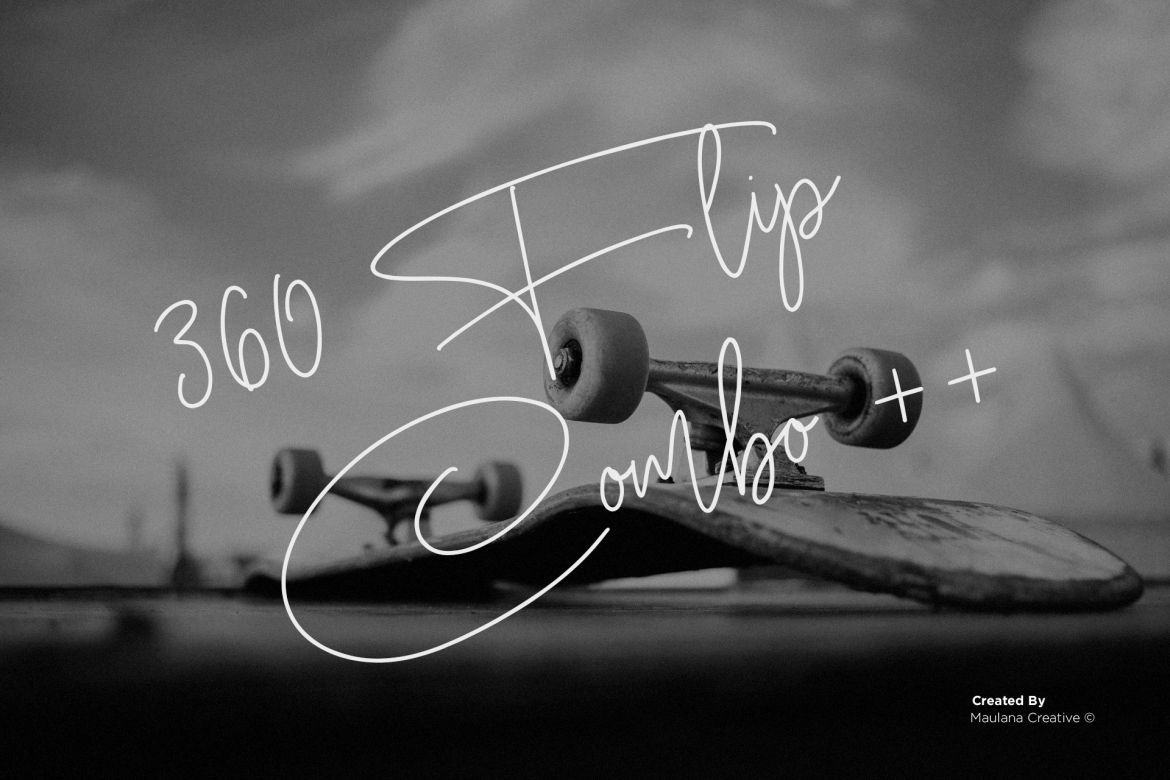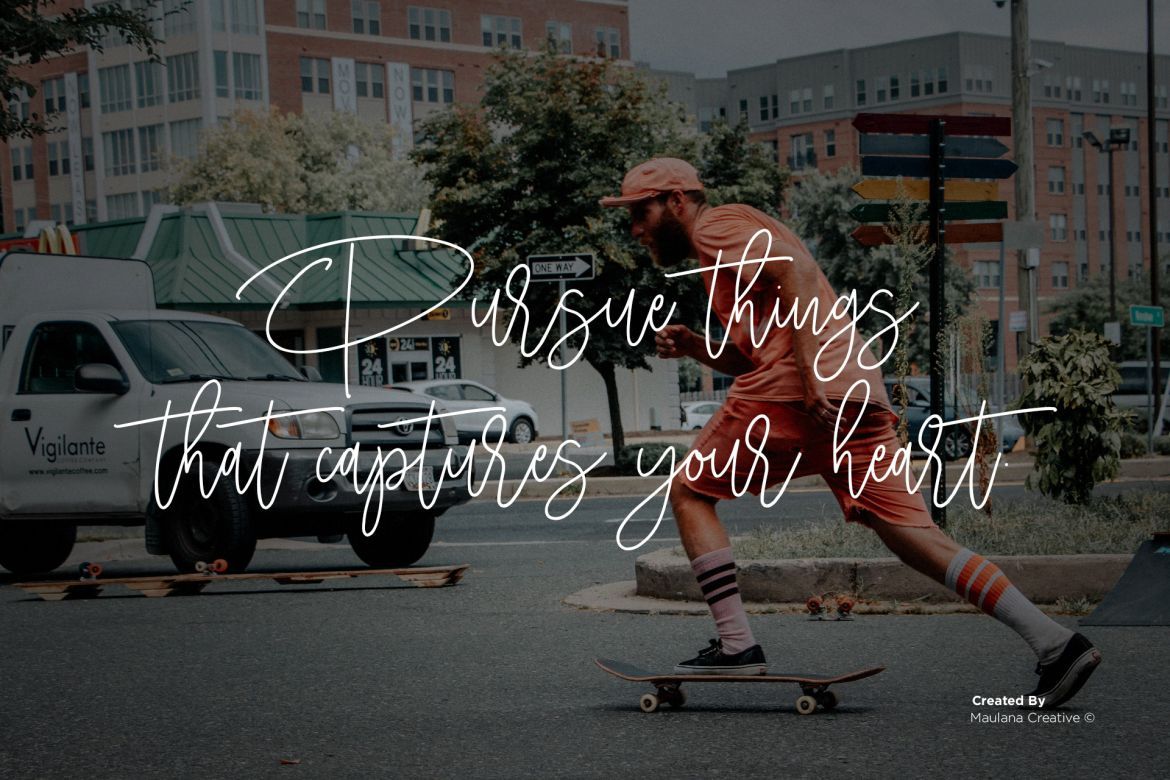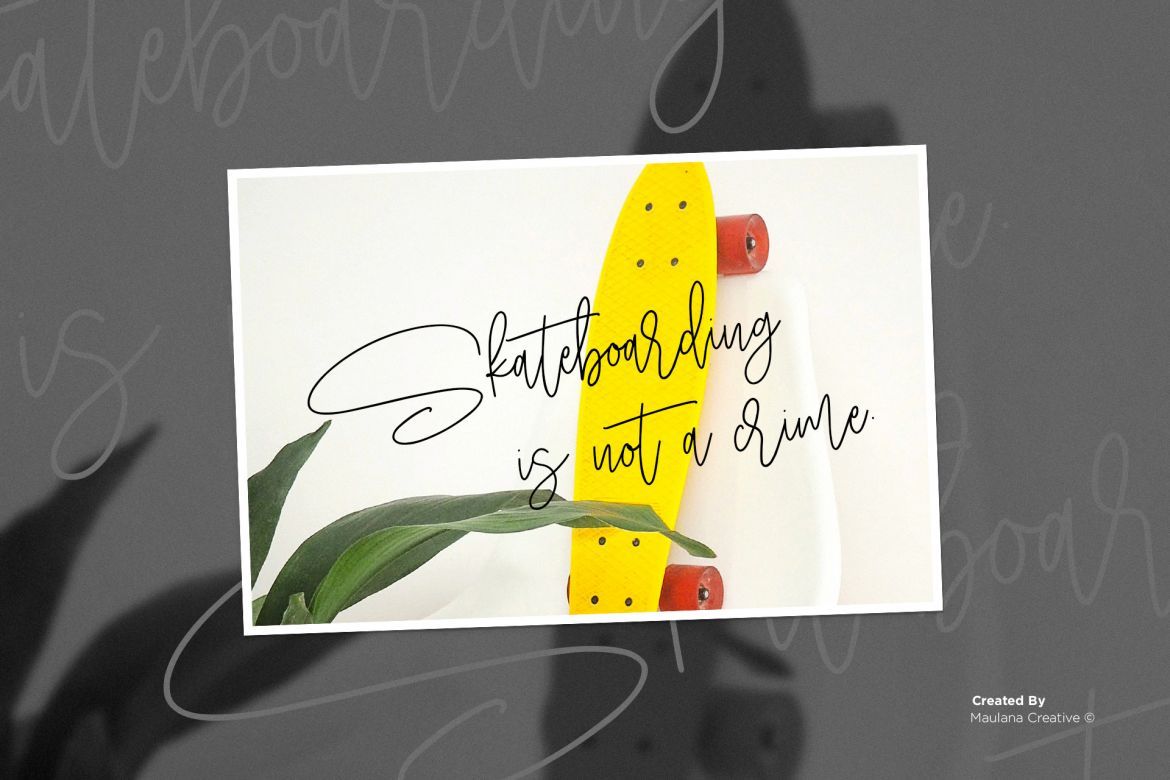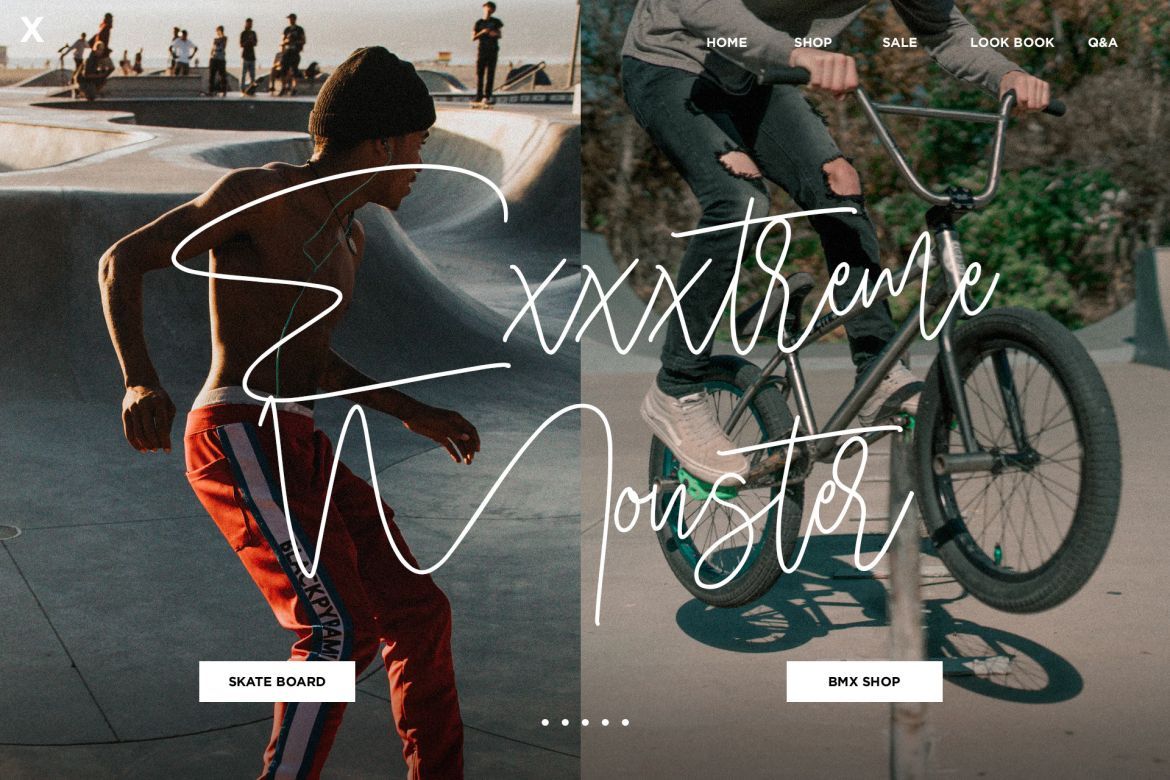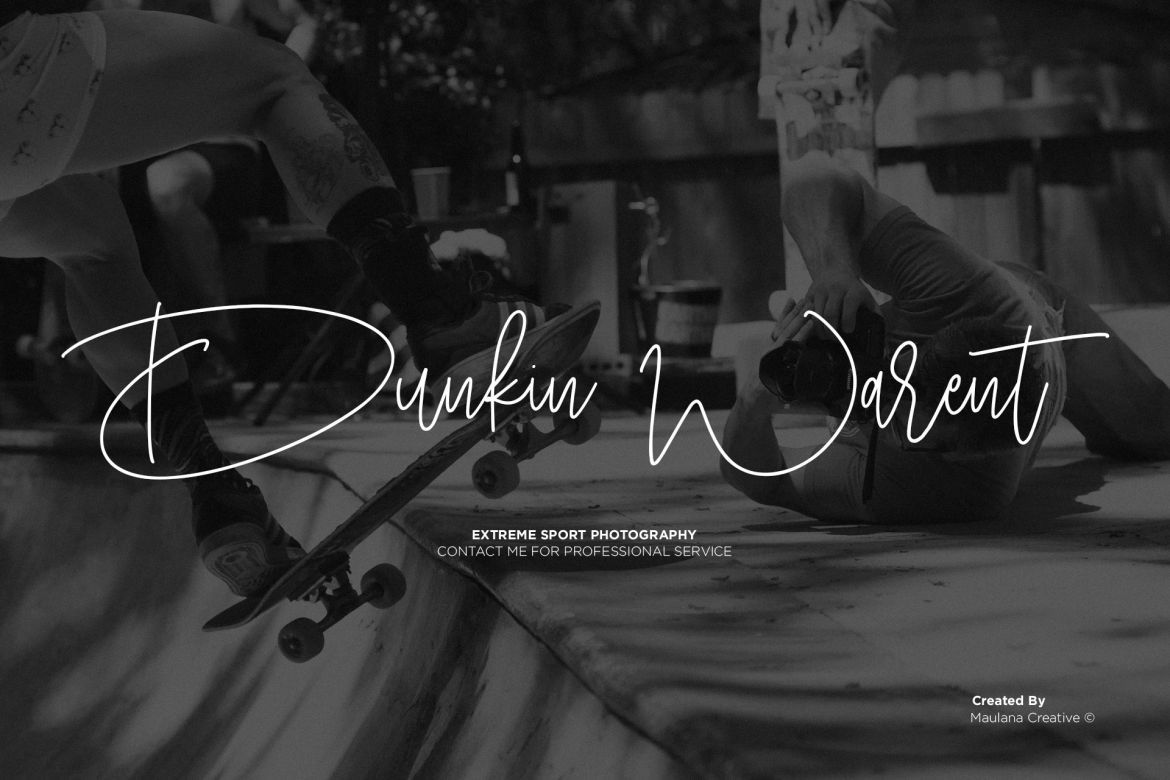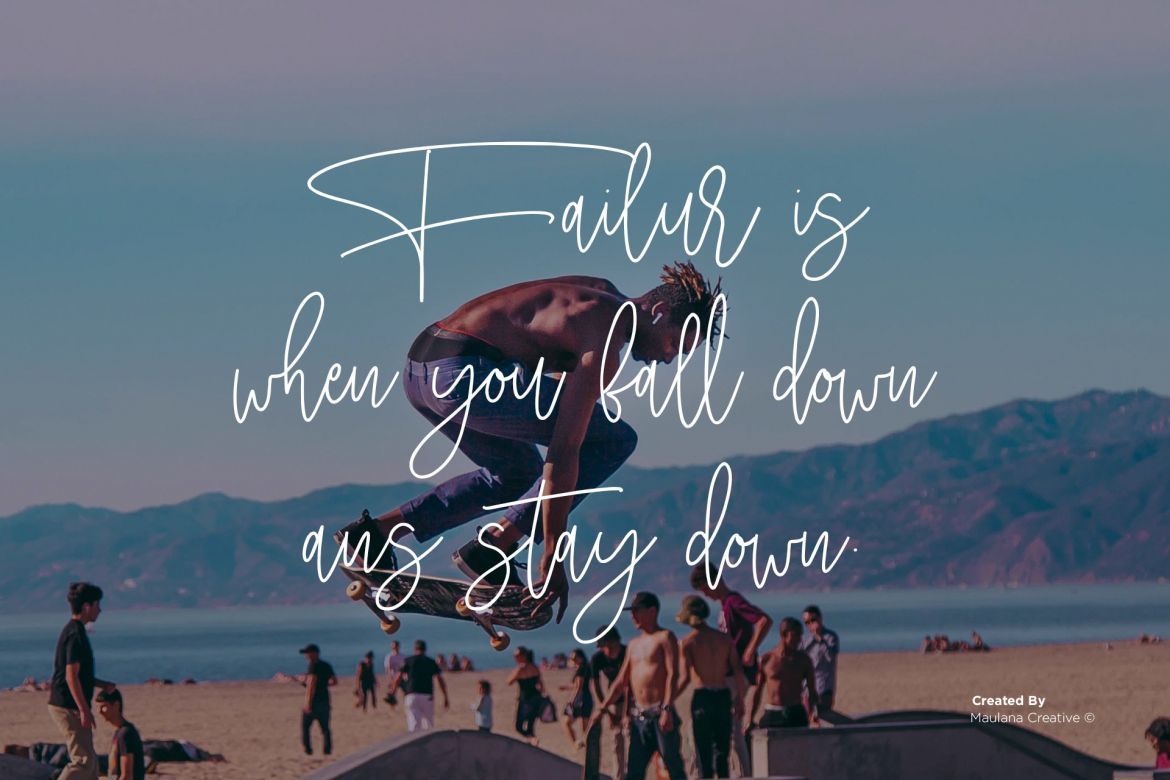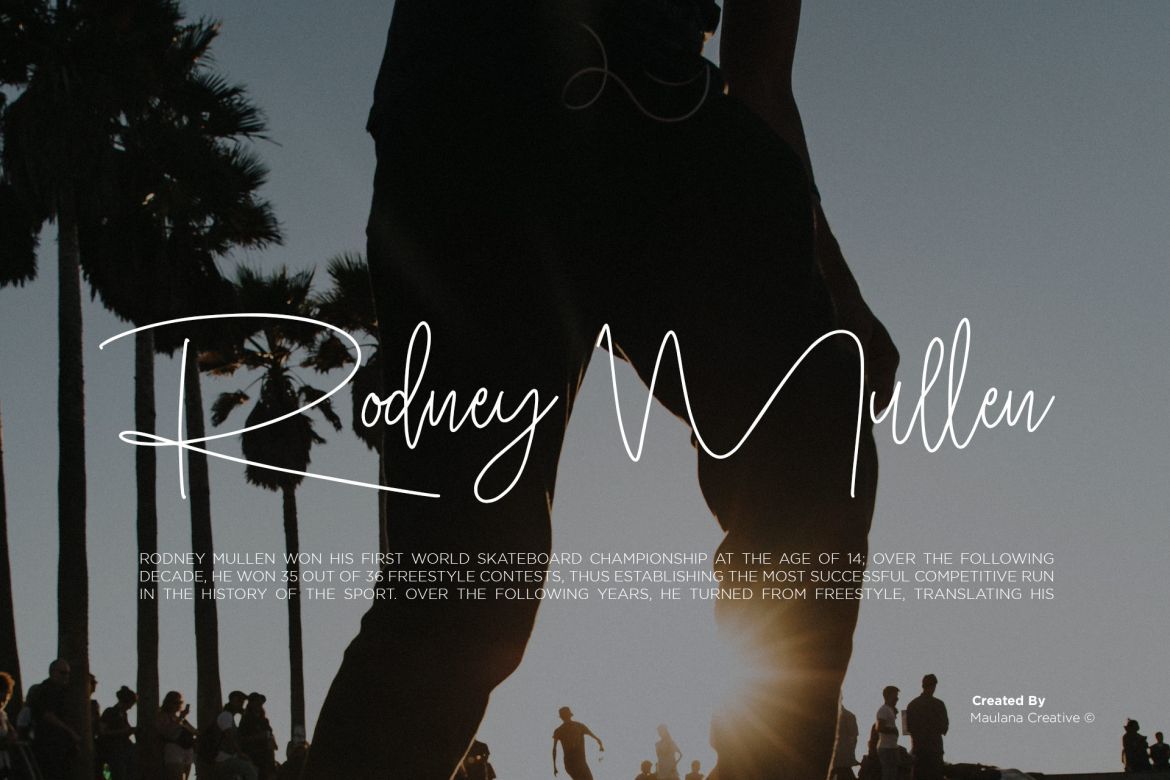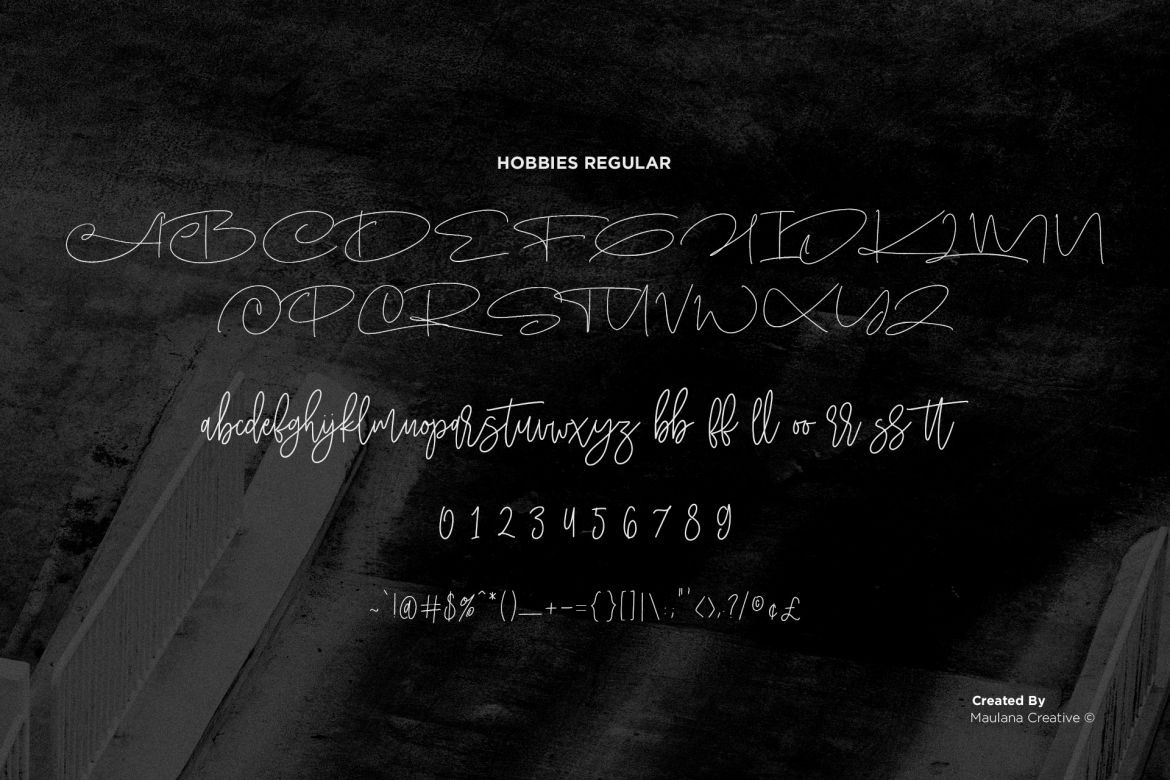
Hobbies Signature Font
Give your designs an authentic handcrafted feel. "Hobbies Signature Font" is perfectly suited to signature, stationery, logo, typography quotes, magazine or book cover, website header, clothing, branding, packaging design and more. Include Ligatures ff, ll, oo, rr, ss, tt, bb.